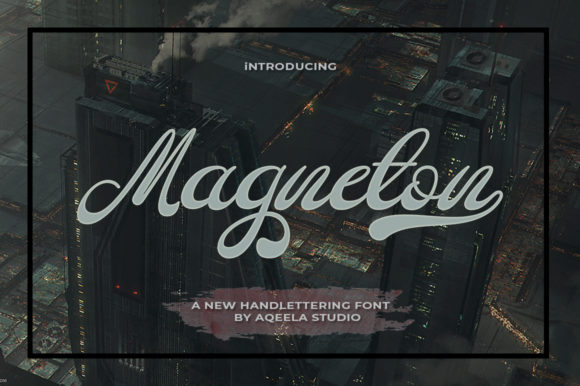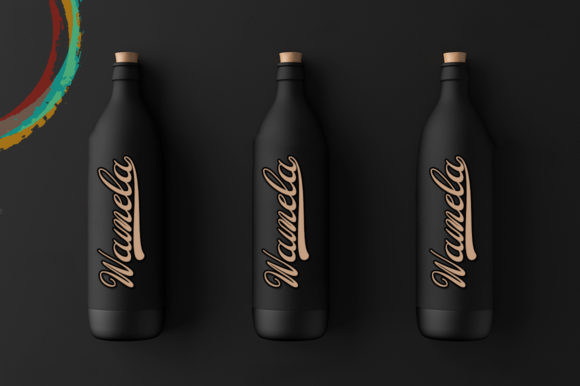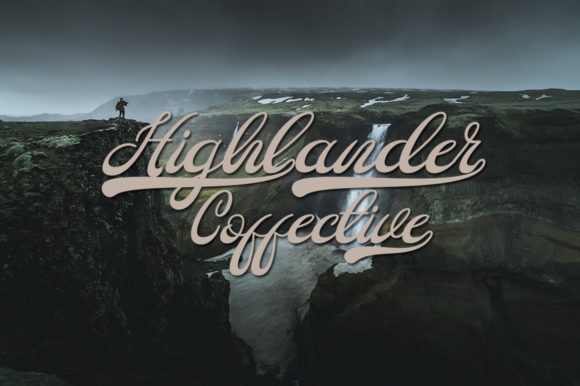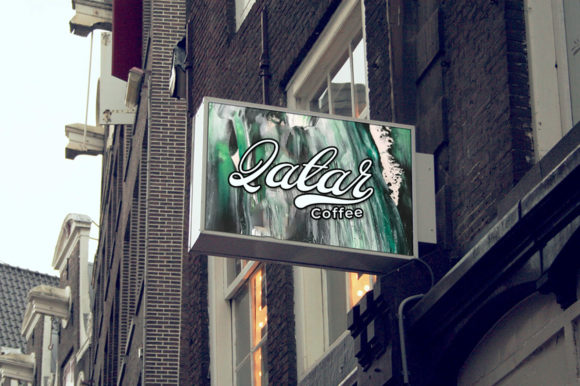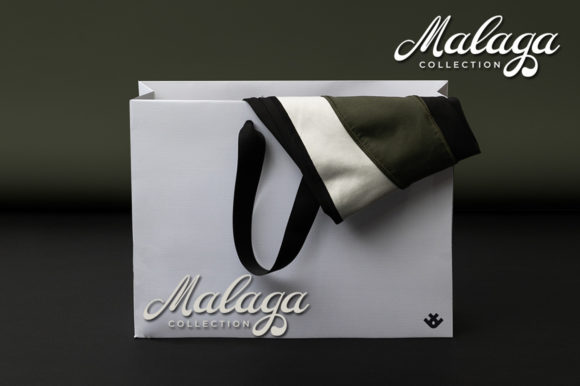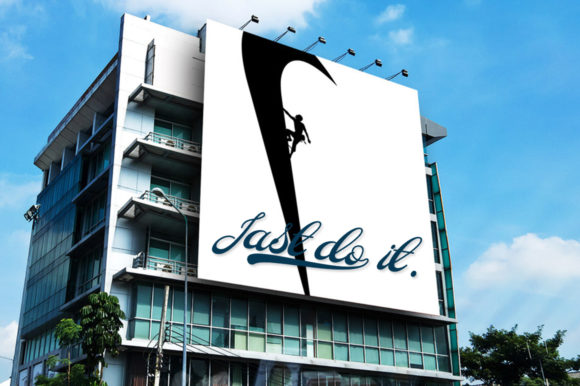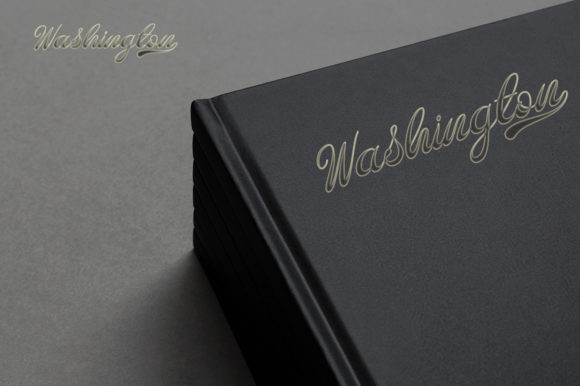
Magneton Font
About Magneton Font
The Magneton is an amazing handwritten typeface. It has a clear style and dramatic movements that are great for logos, printed quotes, invitations, cards, product packaging, headers, logotypes, letterheads, posters, clothing designs, labels, and much more!